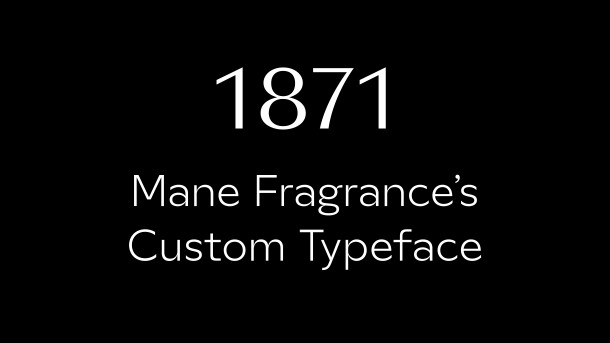
Mane Fragrance Custom Font-Family
Adrien imagines, draws and produces original lettering for logo uses. Graffiti artist by training, he became an excellent typographer and perfectly controls modern typography, he brings with subtlety a touch of originality that was missing.